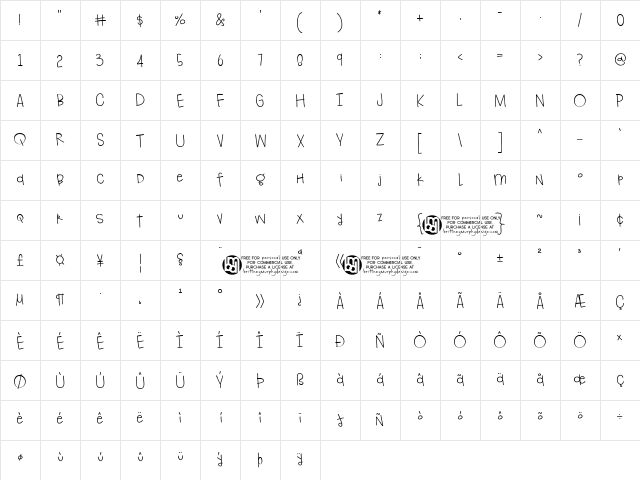
Lingonberry Marmalade Demo Regular
| Foundry | Brittney Murphy |
| Designer | Brittney Murphy |
Lingonberry Marmalade Demo is a composed and adaptable typeface that performs quietly and consistently across a wide range of design contexts.